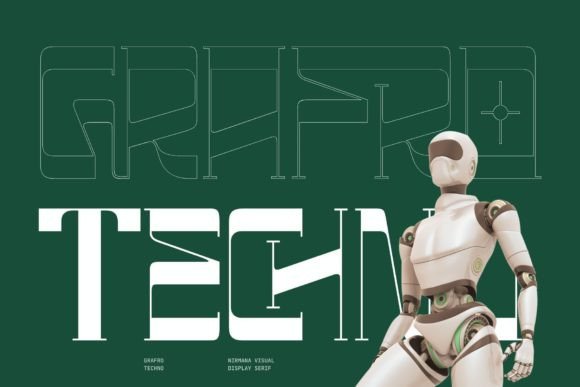
In a world saturated with mundane fonts, let Grafro Techno Font be your beacon of radical innovation. A display font family like no other, it's the epitome of futuristic elegance, engineered to propel your designs into the stratosphere of visual brilliance. Its sharp lines and geometric forms evoke the sleek aesthetics of cutting-edge technology, while its high-tech vibe radiates an aura of limitless possibilities.
Crafted for the visionaries, the innovators, and those who dare to defy convention, Grafro Techno Font is the ultimate weapon in your creative arsenal. Its clean and precise letterforms, coupled with its distinct futuristic style, make it the perfect choice for:
- Technology-based branding that demands a modern and forward-looking identity.
- Gaming graphics that seek to immerse players in virtual realms of wonder.
- Sci-fi posters that capture the imagination and transport viewers to distant galaxies.
- Digital interfaces that exude sophistication and technological prowess.
But what truly sets Grafro Techno Font apart is its PUA encoding, a gateway to a universe of glyphs and ligatures that ignite your creativity. Unleash the full potential of this font and watch as your designs transcend the ordinary, becoming masterpieces of innovation that leave an indelible mark on the digital landscape.
Don't settle for fonts that blend into the background. Embrace the power of Grafro Techno Font and unlock a new era of visual brilliance. Let your designs scream innovation, radiate sophistication, and leave a lasting impression that echoes through the corridors of time.